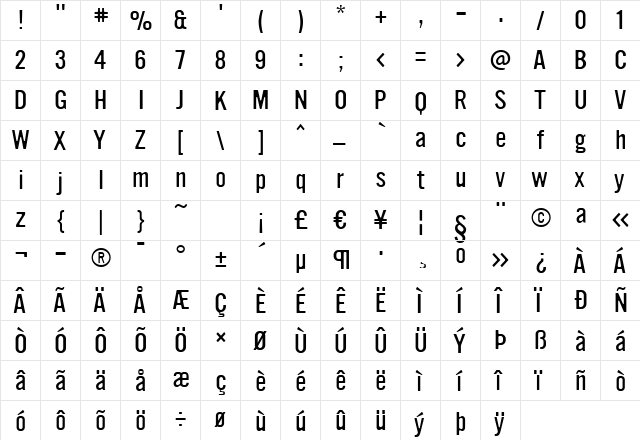
Ultramagnetic Light
| Foundry | YouWorkForThem |
| Designer | Michael Cina |
Design Context for Ultramagnetic Typeface
Ultramagnetic is a composed and adaptable typeface that performs quietly and consistently across a wide range of design contexts. Its slender proportions lend an understated elegance to any composition.